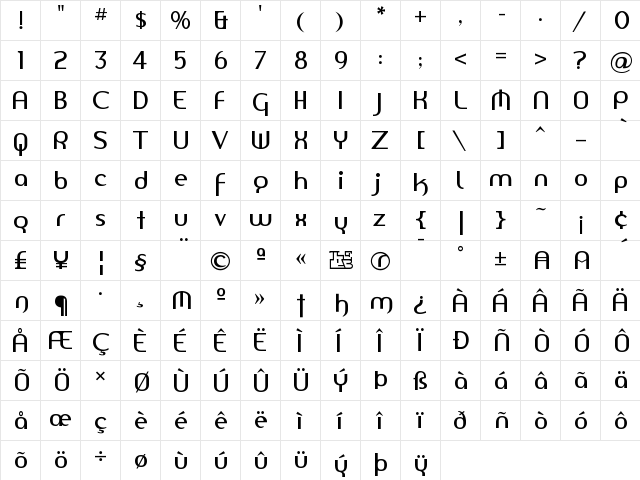
Amerika Sans Regular
Design Context for Amerika Sans Typeface
Amerika Sans offers clean, dependable letterforms without strong stylistic allegiance, making it a practical choice for designers who need flexibility.
Pro Tip: Use Amerika Sans in both headline and body roles to test its range before committing to a single application.